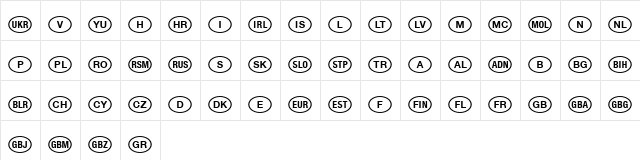
NationalCodes Light Font Preview
Design Context for NationalCodes Typeface
NationalCodes brings the precise, column-aligned rhythm of monospaced typography to designs that value technical clarity and systematic order. Its slender proportions lend an understated elegance to any composition.